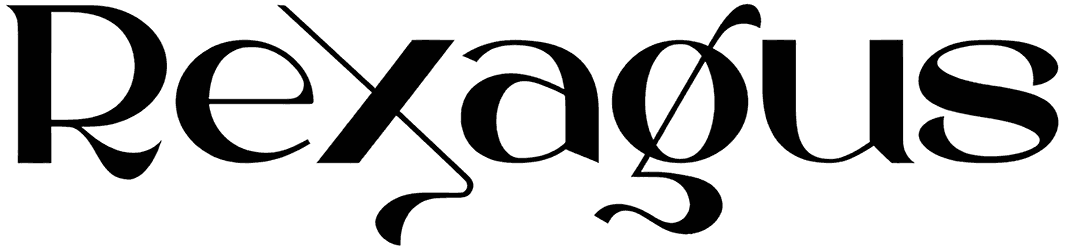
Rexagus Font
Do you like to garnish the words of your coming design with a classic and elegant style? This fashion font, with its unique outward, which is known as Rexagus font, is a superb choice. With an almost full cover for characters, this salient item would be a captivating illustration for a lot of layouts, from business cards to packaging.